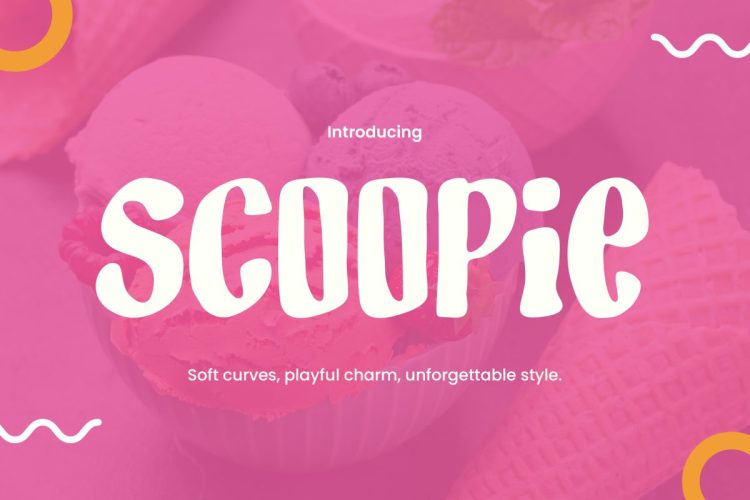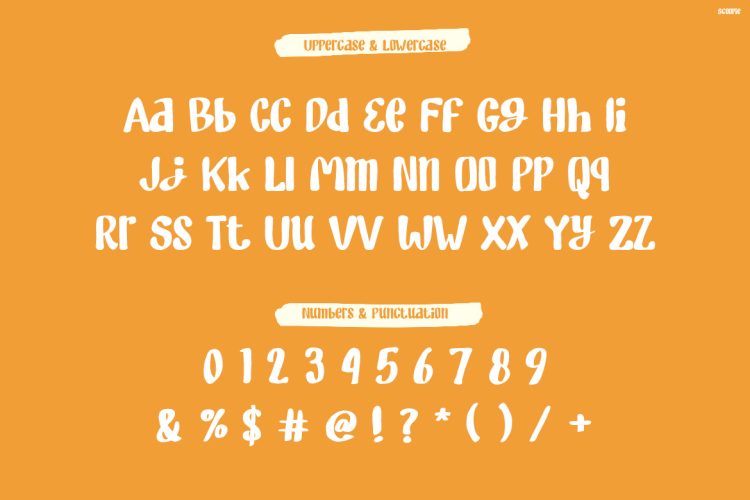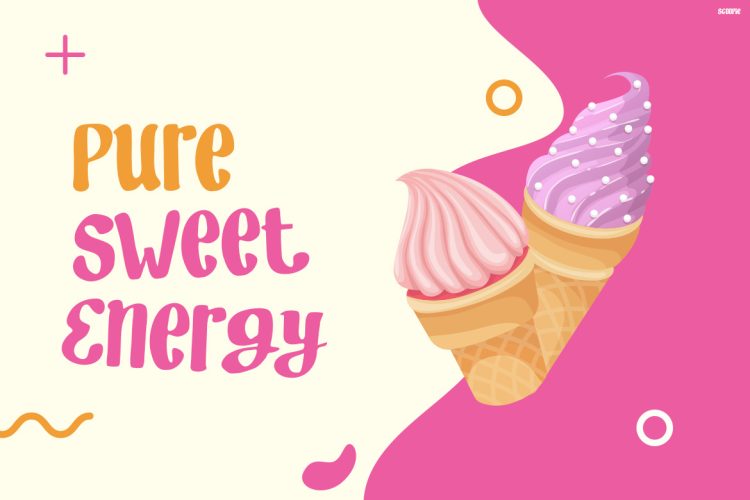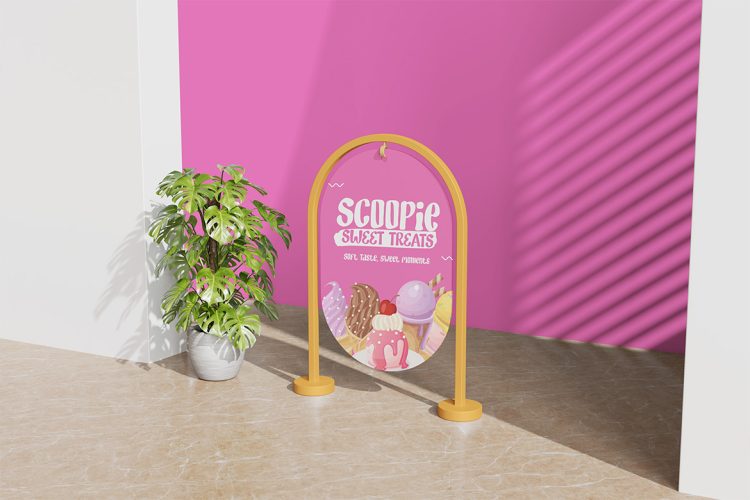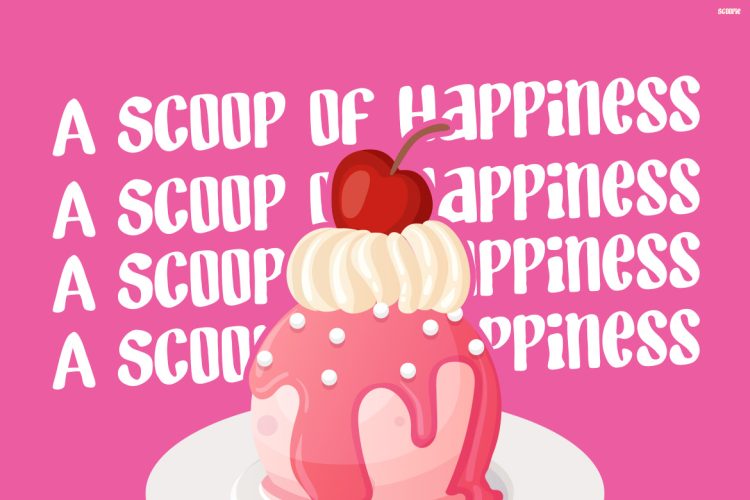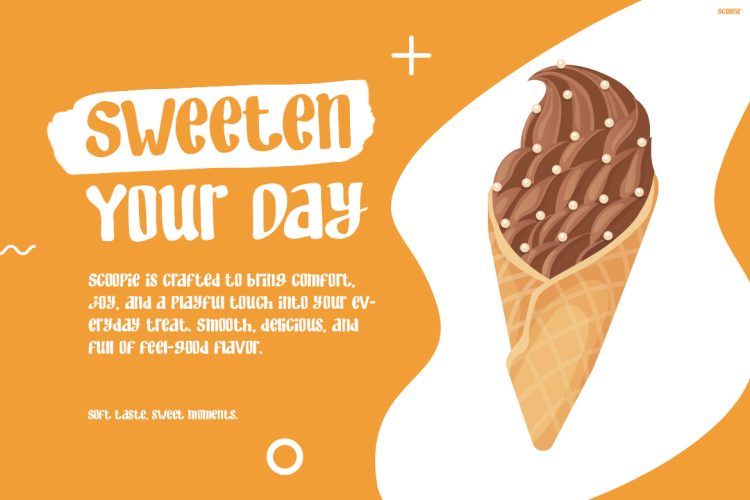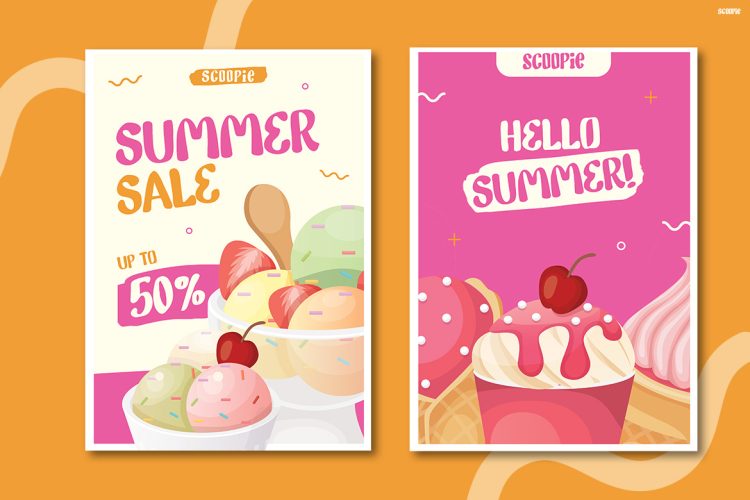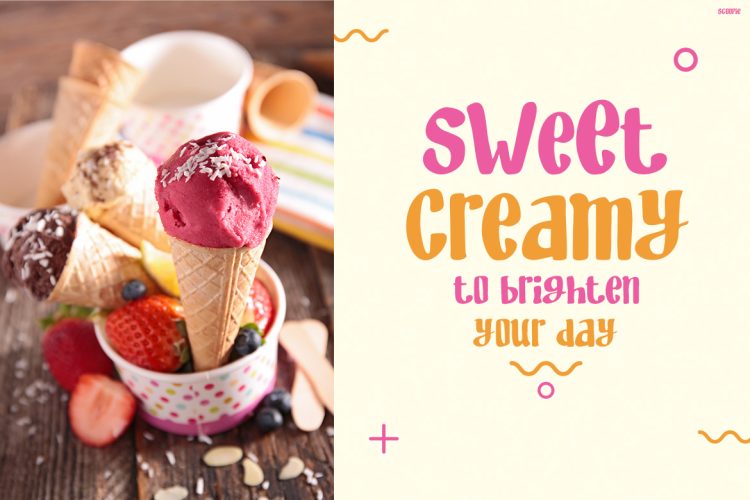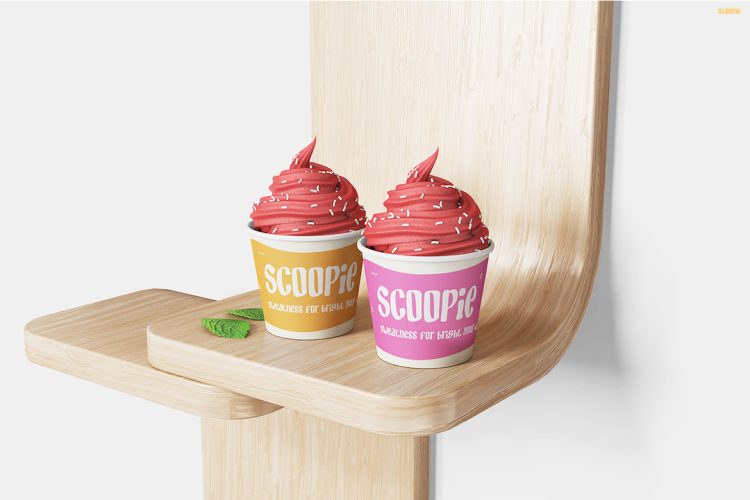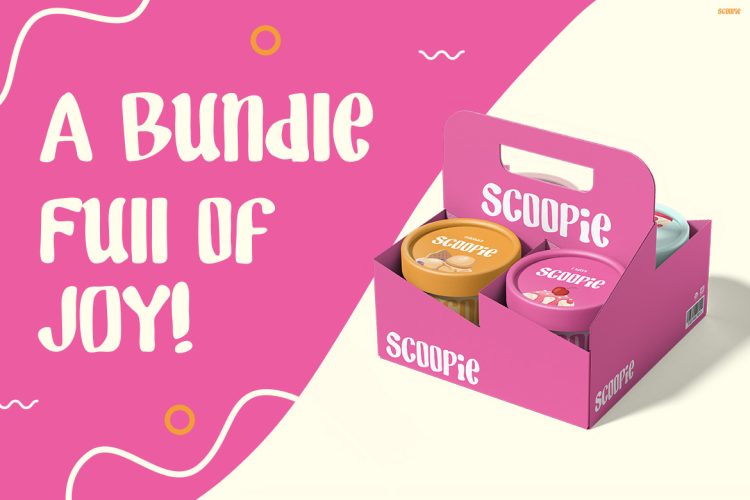
Scoopie โ Sweet & Playful Kids Display Font
Kids Font Scoopie brings a delightful burst of sweetness and charm inspired by colorful ice cream visuals. Moreover, its rounded and bubbly letterforms create a soft and friendly look. The playful curves and bold shapes make every word feel lively and expressive. In addition, this font stands out with a unique personality that feels both fun and modern. Not only is it visually appealing, but it also maintains excellent readability. Therefore, it works perfectly for eye-catching headlines and cheerful branding.
Kids Font Scoopie is designed to enhance visuals with a bright and energetic mood. Furthermore, it includes uppercase, lowercase, numbers, and symbols for full creative flexibility. Each character keeps a consistent yet playful style. As a result, your designs will look cohesive and engaging. The thick strokes improve visibility in both print and digital formats. At the same time, the quirky shapes add fun without overwhelming the layout. In addition, this font pairs beautifully with colorful illustrations and bold compositions. Therefore, it is perfect for posters, packaging, and social media content.
This font is ideal for designers who target a young and playful audience. For example, it works well for kidsโ products, ice cream brands, and snack packaging. In addition, you can use it for birthday invitations and school materials. Moreover, it is great for social media campaigns and seasonal promotions. Business owners in the food and beverage niche will benefit from its cheerful tone. Likewise, creative agencies can use it for fun and engaging branding projects.
In conclusion, if you want to add joy and personality to your designs, Kids Font Scoopie is the perfect choice. Not only will it make your visuals stand out, but it will also create a memorable impression. So, donโt miss the chance to elevate your projectsโget it now and turn every design into something fun and delightful.